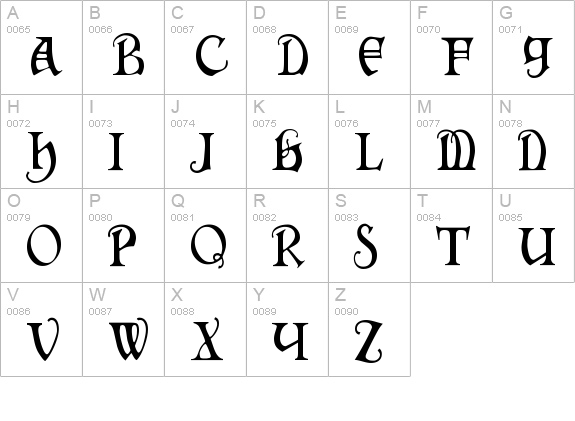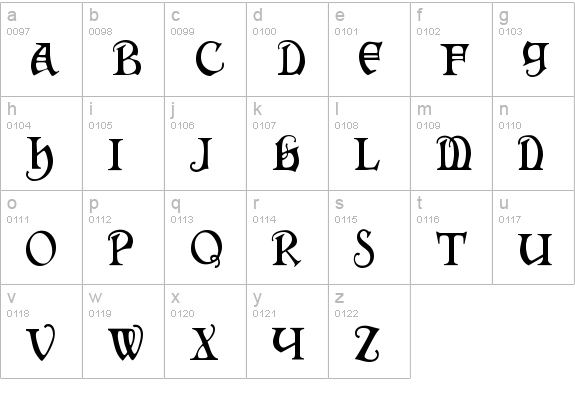
Hermiaâ„¢ Font Details
Hermia™ font is a beautifully crafted typeface that exudes elegance and sophistication. With its delicate curves and graceful lines, Hermia™ is the perfect choice for projects that require a touch of refinement. This versatile font can be used for a variety of design purposes, from branding to editorial work. What sets Hermia™ font apart is not just its aesthetic appeal, but also the fact that it is available for free download at FontsMarket.com. This means that you can enhance your projects with this stunning font without having to worry about any additional costs. Whether you are working on a personal passion project or a professional assignment, Hermia™ font is sure to elevate your designs to the next level. Download it today and experience the beauty and versatility of Hermia™ font for yourself.